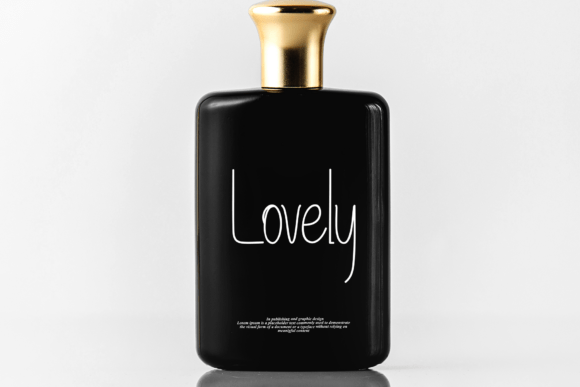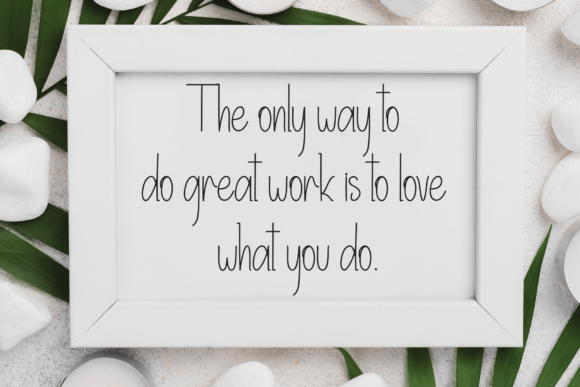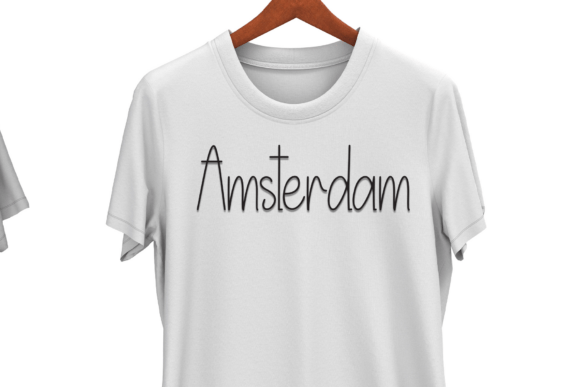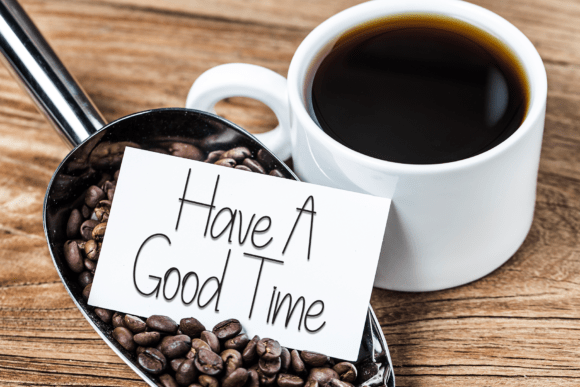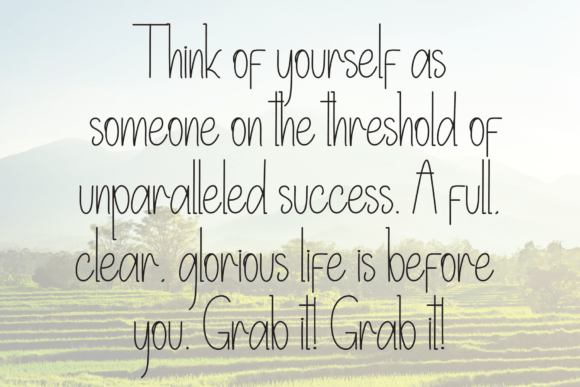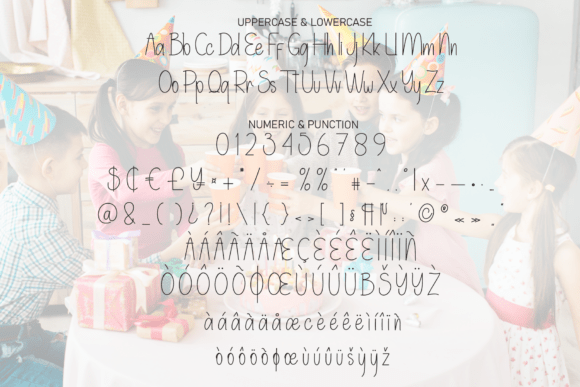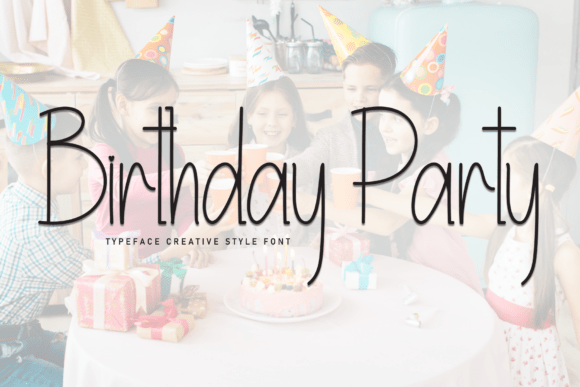
The Perfect Party: Discovering the Charm of Birthday Party Font
I’ll never forget the time I was working on a birthday party invitation project for a client’s kid’s milestone birthday. The design was almost complete, but something was missing – the perfect font. I scrolled through my font library, but nothing seemed quite right. That’s when I stumbled upon Birthday Party font, and it was love at first sight! ✨
With its clean lines, relaxed structure, and fresh vibe, Birthday Party font instantly elevated my design. It added a touch of friendliness and approachability that perfectly captured the essence of a birthday celebration. In this article, I’ll share my experience with Birthday Party font, its features, and how to make the most of it in your designs.
• ✅ Fresh and friendly vibe that’s perfect for birthday parties, celebrations, and social media graphics
• ✨ Clean lines and relaxed structure for a polished appearance
• ✅ Great for packaging, posters, and other display materials
• ✅ Easy to read and understand, even at smaller font sizes
While Birthday Party font is an excellent choice for many projects, there are a few things to keep in mind: 🤔
• ⚠️ Limited use of OpenType features, which might be a drawback for some designers
• ⚠️ Not ideal for body text or lengthy content, as it’s best suited for headlines and titles
Birthday Party font offers some exciting OpenType features and glyphs that can enhance your designs. Here are a few tips:
• Stylistic alternates: Experiment with different letterforms and swashes to add personality to your text
• Glyphs: Use special characters, such as ligatures and ornaments, to add visual interest
The Story Behind Birthday Party Font
Birthday Party font was designed with the intention of capturing the fresh, friendly vibe of a birthday celebration. The designer aimed to create a font that would be perfect for packaging, posters, and social media graphics, while maintaining a polished appearance. The result is a clean, approachable font that’s sure to delight.
Q: What type of projects is Birthday Party font best suited for?
A: Birthday Party font is ideal for birthday parties, celebrations, social media graphics, packaging, and posters.
Q: Can I use Birthday Party font for body text?
A: While Birthday Party font is easy to read, it’s best suited for headlines and titles. For body text, consider using a font with more traditional letterforms.
Q: Does Birthday Party font support OpenType features?
A: Yes, Birthday Party font offers some OpenType features, including stylistic alternates and glyphs.